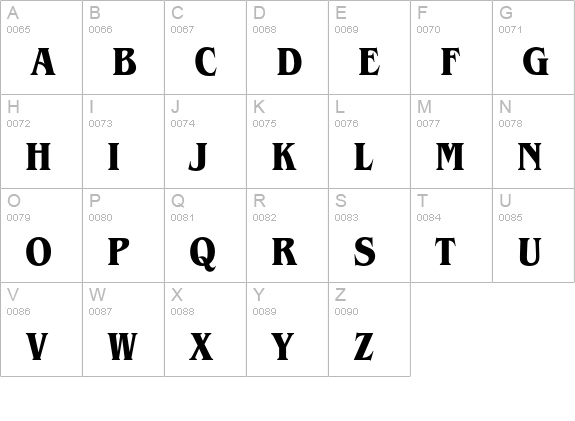
BenguiatEF-BoldCondensed font is a bold and striking typeface that exudes confidence and modernity. Its condensed design makes it perfect for headlines, titles, and other attention-grabbing text. The strong lines and distinctive letterforms of this font make it a versatile choice for a wide range of design projects. What's even better is that BenguiatEF-BoldCondensed font is available for free download at FontsMarket.com. This means you can easily access this stylish and impactful font to enhance your designs without any cost. Whether you're working on a poster, logo, or website, BenguiatEF-BoldCondensed font is sure to make a bold statement and leave a lasting impression on your audience. Download it today and elevate your design projects with this eye-catching typeface.